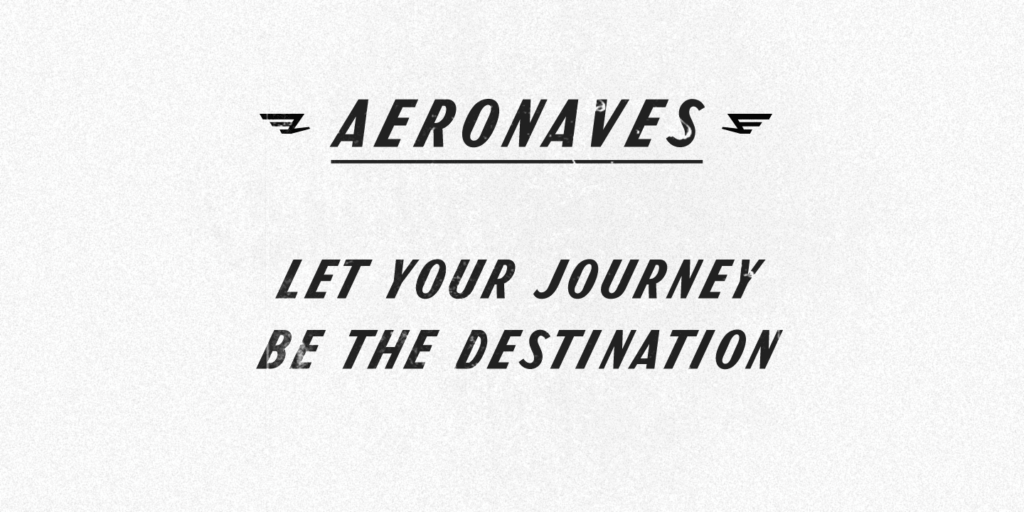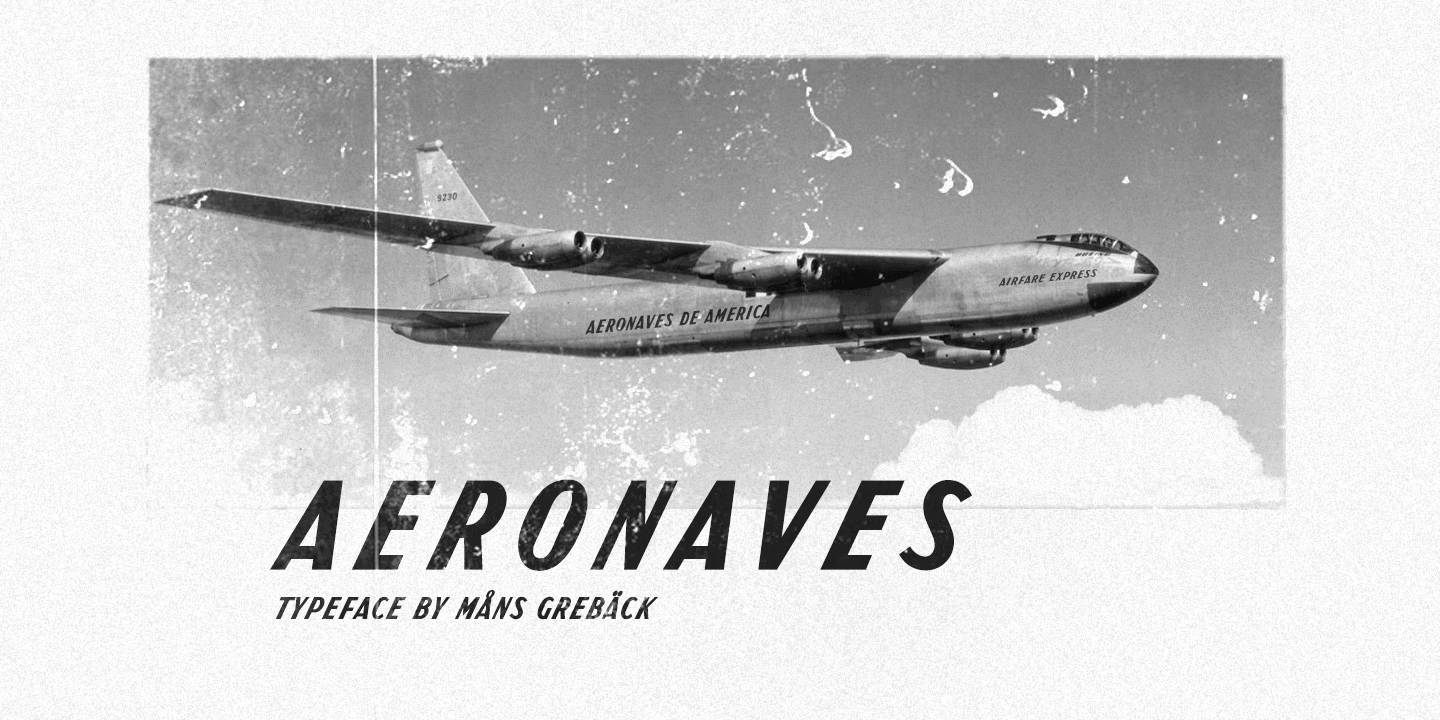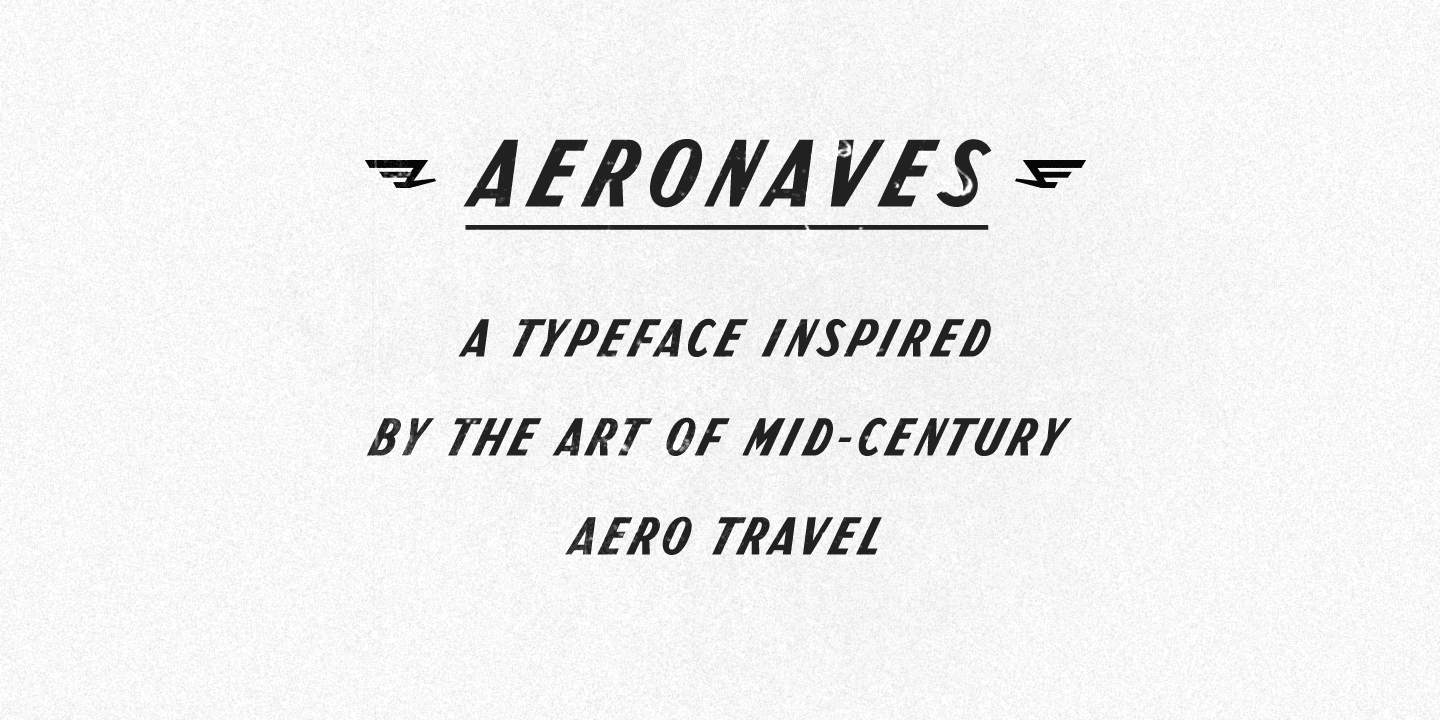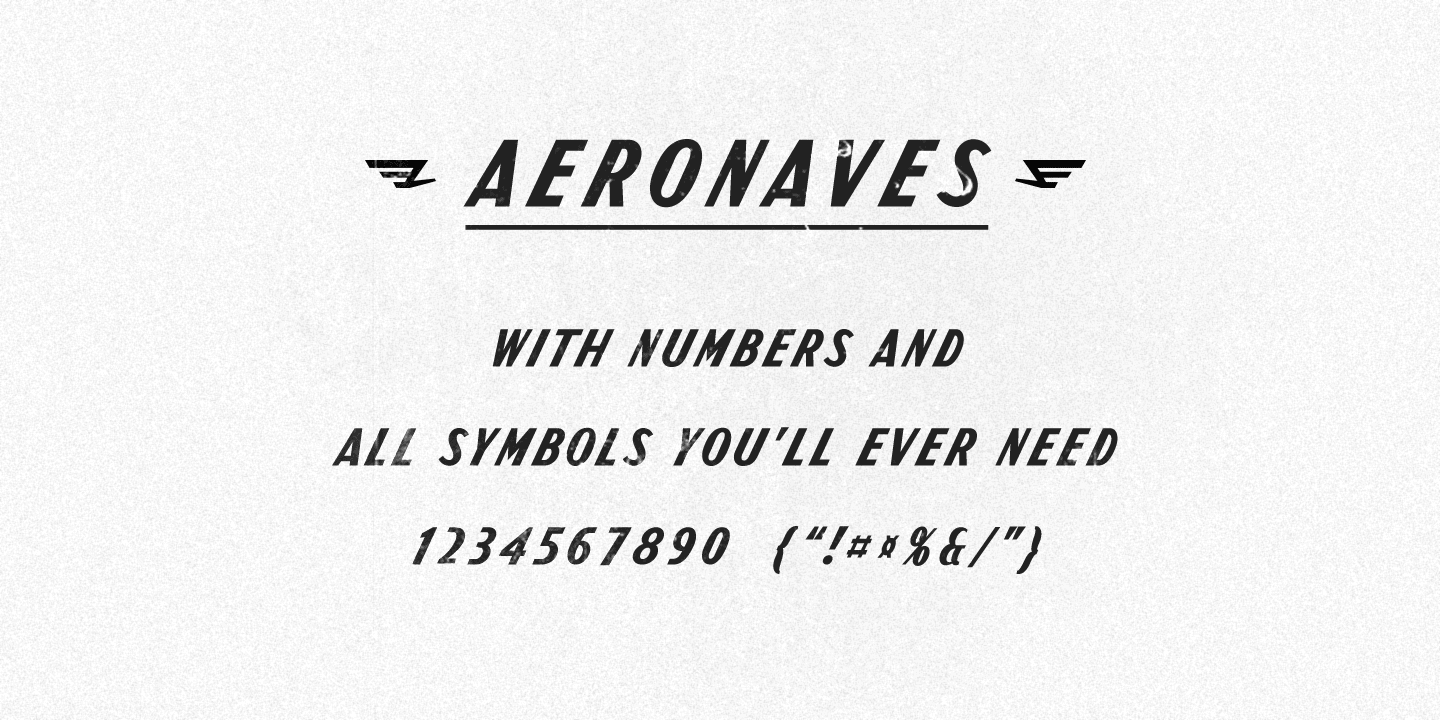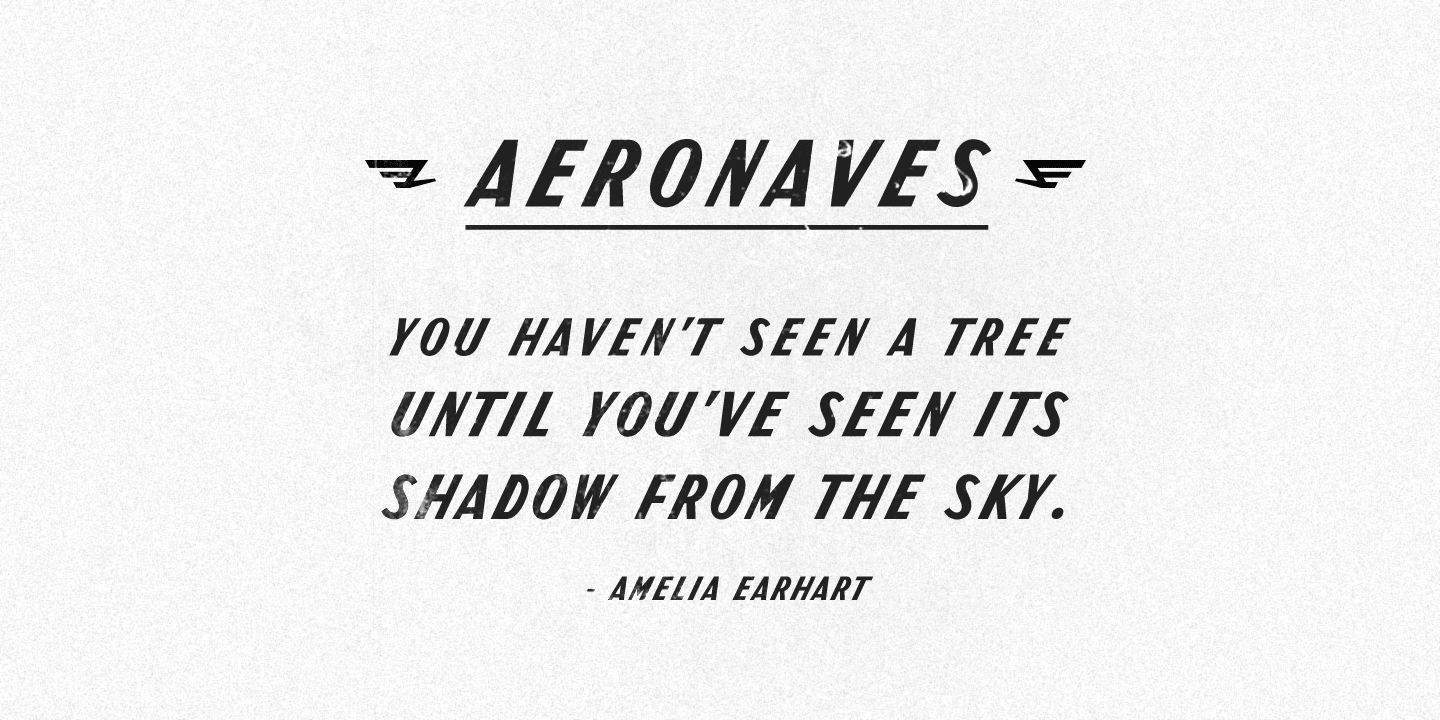
Aeronaves
Aeronaves is a high-quality sans serif typeface inspired by mid-century air travel graphics. It has a speeding slant, geometrical shapes and confident weight.
It supports all Latin-based European languages, contains numbers and all symbols you’ll ever need.